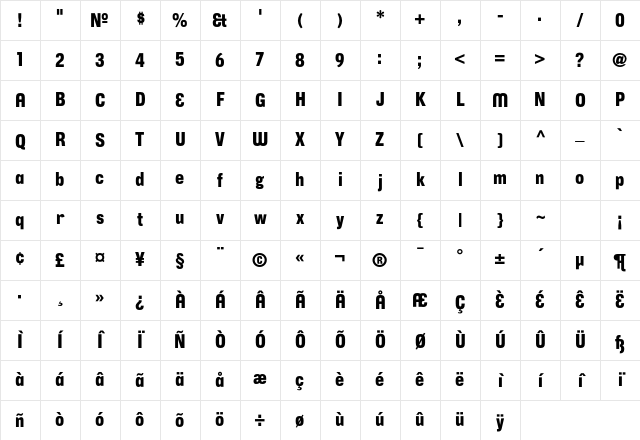
CorpusGothicAlternative Regular Free Font
CorpusGothicAlternative Regular
Design Context for CorpusGothicAlternative
CorpusGothicAlternative takes a clean, functional approach - its unadorned letterforms prioritise legibility and work reliably across screen and print environments.
Works well in signage, UI design, marketing materials, and anywhere clean functional typography is needed.
Font Pairing: Works well alongside a characterful serif or display font that can carry the expressive load while CorpusGothicAlternative handles the functional copy.
Pro Tip: Use CorpusGothicAlternative for UI labels, navigation, and short-form body copy where clean legibility is the priority.